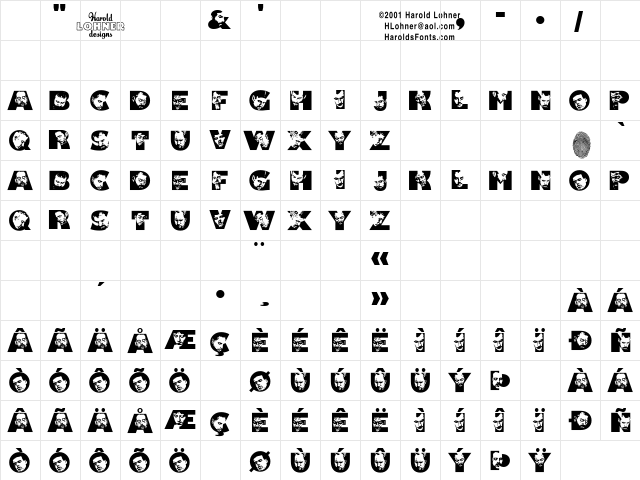
Hymn Regular Font Preview
Hymn Regular
Design Context for Hymn Typeface
Hymn is a composed and adaptable typeface that performs quietly and consistently across a wide range of design contexts.